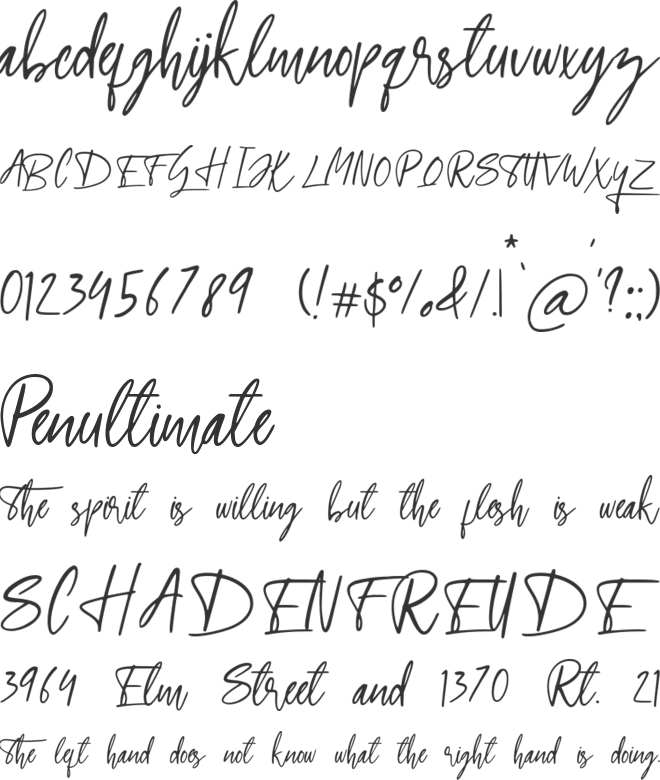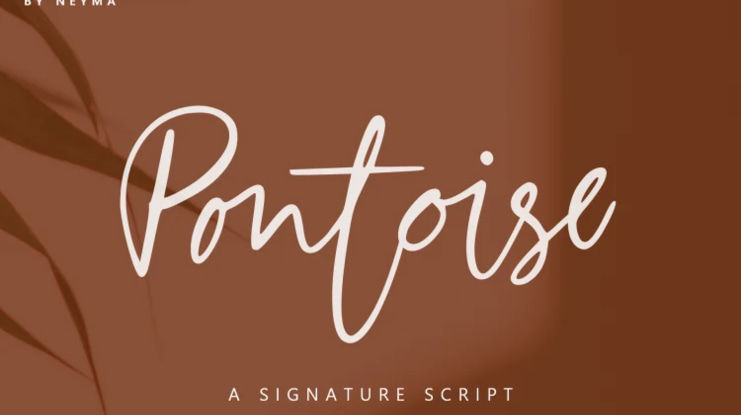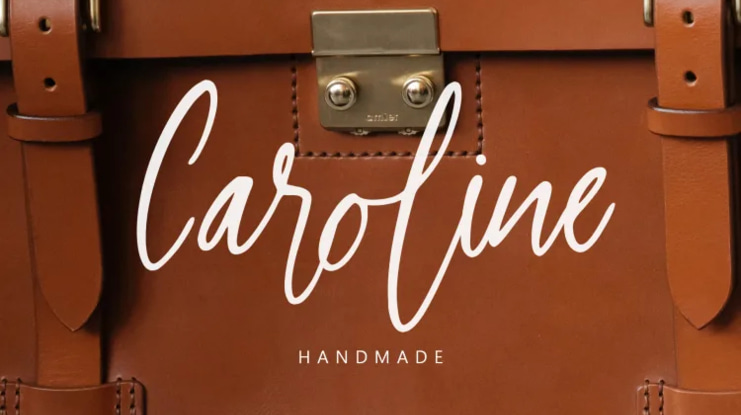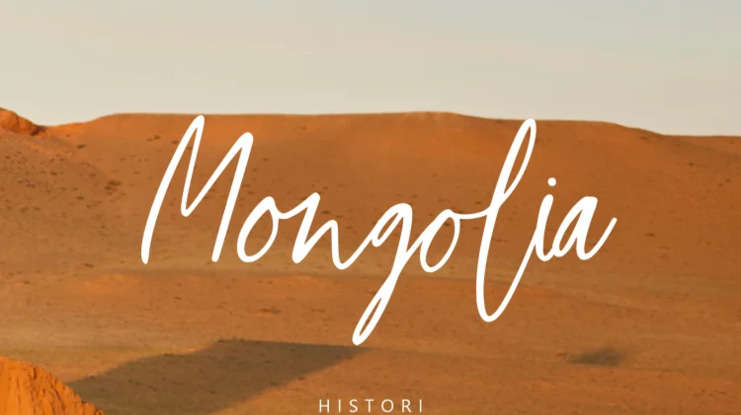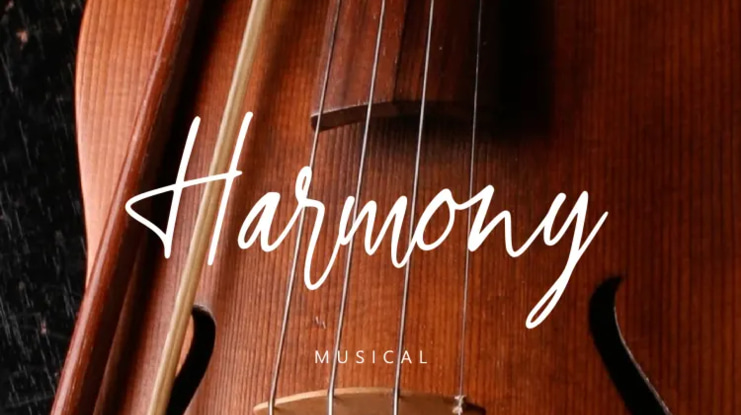
Pontoise Font
Pontoise Script font is a fun font with lots of energy and a natural handwriting style, allowing you to create beautiful handcrafted typography in an instant.
Comes with a complete set of uppercase, lowercase and 55 ligatures will make your text more perfect to use for logos, printed quotes, invitations, cards, product packaging, headers and anything else you can imagine